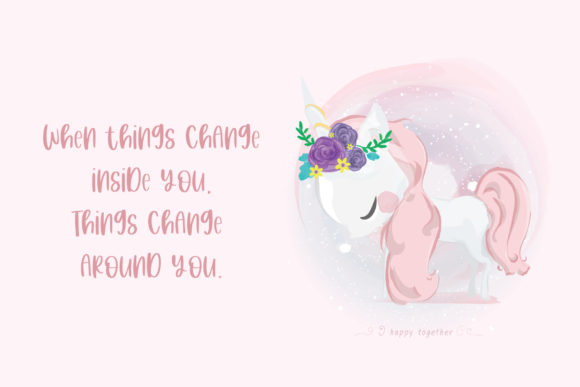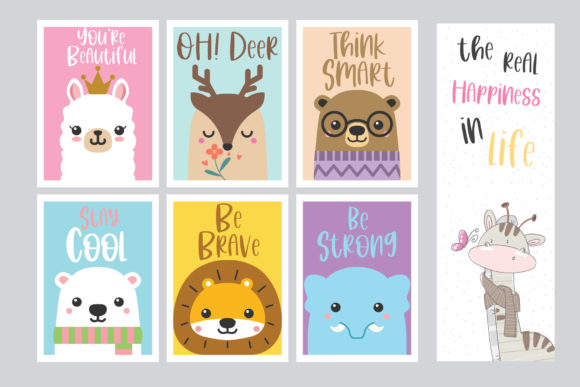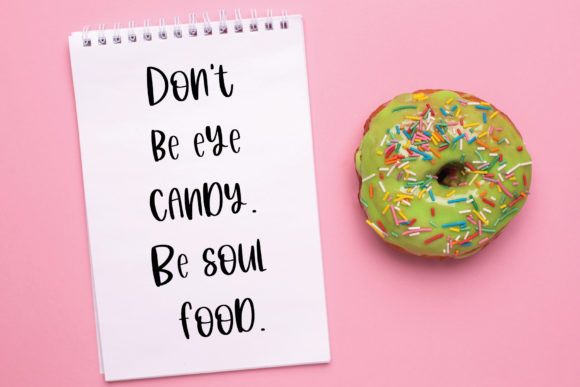
The Perfect Font for Your Next Crafting Project
Have you ever found yourself rummaging through your craft supplies, searching for the perfect embellishment to make your project truly special? We’ve all been there – it’s that moment when everything comes together, and your creation takes on a life of its own. For many crafters, the right font can be the final touch that makes all the difference.
That’s where the Cherry Pink Font comes in – a sweet and cute handwritten font that’s sure to add a touch of whimsy to any project. Whether you’re creating invitations, party decorations, or just a special gift for a loved one, this beautiful font is the perfect choice. And for designers, the value of the Cherry Pink Font lies in its versatility and ease of use, making it a valuable addition to any design library.
Cherry Pink Font Key Features
- Font Family: Cherry Pink, a unique and elegant script font designed to evoke a sense of nostalgia and romance.
- Unique Characteristics: Features a distinctive, hand-drawn style with subtle imperfections, giving it a charming and organic feel.
Cherry Pink Font Review
Overall, I think the Cherry Pink font has a lot of potential, but it’s not without its limitations. Here’s my honest take on this font:
- Catchy and playful: Cherry Pink is perfect for creating a fun and lively atmosphere, making it ideal for designs like posters, social media graphics, or even children’s books.
- Legibility: Despite its playful nature, the font is still relatively easy to read, especially in larger sizes.
- Colorful: The font’s unique color palette can add a lot of visual interest to a design.
- Not suitable for formal designs: Cherry Pink’s playful nature makes it a poor choice for formal or professional designs.
- May be overwhelming in small sizes: While the font is legible in larger sizes, it can become too busy or overwhelming in smaller sizes.
- Not as versatile as other fonts: Cherry Pink’s unique style may limit its use in certain design contexts.
Overall, I think the Cherry Pink font is a great addition to any designer’s toolkit, but it’s essential to use it judiciously and consider the design context. With a bit of creativity and restraint, this font can add a lot of personality and flair to a design.
For optimal results, use the Cherry Pink font in designs that require a playful and feminine touch. It pairs well with pastel colors and floral patterns. Experiment with different font sizes and styles to achieve the desired effect.
The Cherry Pink font is commonly used in:
- Baby shower invitations and decorations
- Food and beverage branding
- Women’s lifestyle and fashion magazines